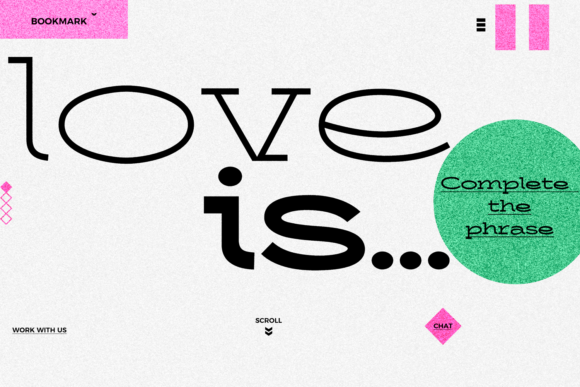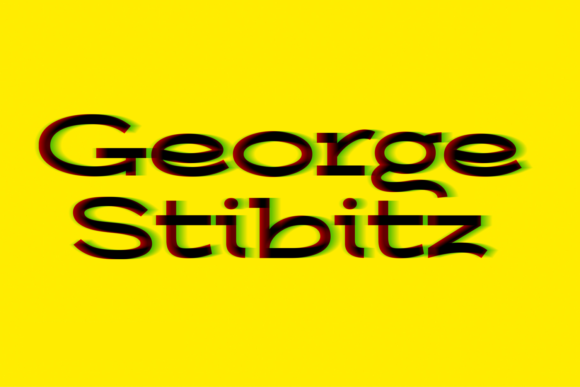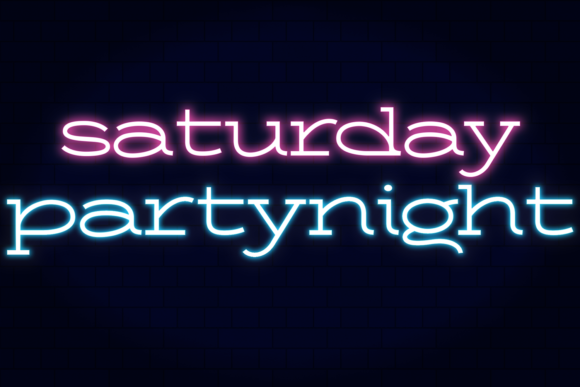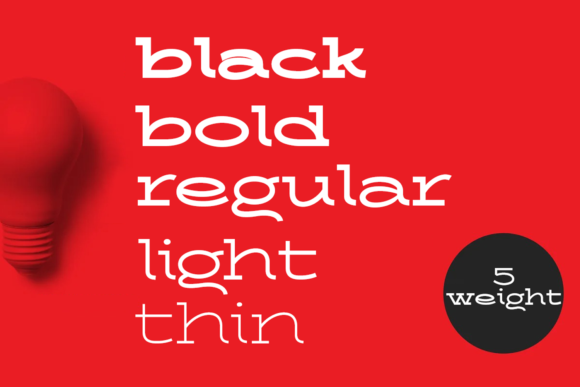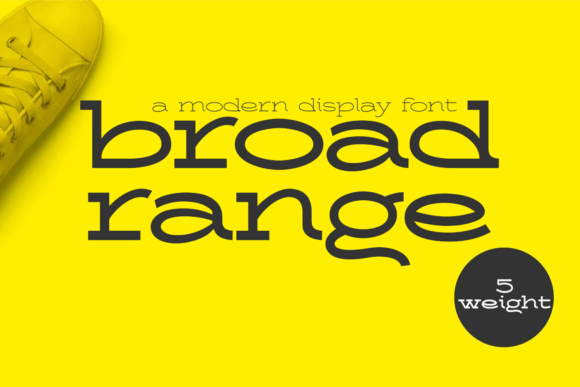
Broad Range
Broad Range: A Cool and Vintage-Styled Slab Serif Font
Broad Range is a distinctive slab serif font that combines coolness with a vintage aesthetic. This versatile typeface is designed to enhance a wide range of design projects, particularly posters, flyers, and print materials.
Key Features of Broad Range
• Cool Design: Offers a trendy and appealing look that resonates with modern design trends.
• Vintage Style: Evokes a sense of nostalgia with its retro-inspired letterforms.
• Slab Serif Structure: Incorporates the characteristic thick, rectangular serifs typical of slab serif fonts.
• Versatile Application: Suitable for various design projects, especially print materials.
• Eye-Catching Details: Unique characteristics that make designs stand out with a vintage flair.
Ideal Uses for Broad Range
Broad Range’s unique characteristics make it particularly well-suited for:
• Poster designs with a retro touch
• Eye-catching flyers and promotional materials
• Print advertisements with a vintage feel
• Book covers and editorial designs
• Branding projects seeking a cool, nostalgic vibe
• Social media graphics and digital content
When incorporating Broad Range into your designs, consider these tips:
• Use for headlines or short blocks of text to showcase its cool and vintage style
• Experiment with different sizes to highlight the font’s unique details
• Take advantage of its versatility across various print and digital projects
Broad Range is an excellent choice for designers looking to add a cool and vintage-styled slab serif font to their typographic toolkit. Its ability to enhance various design projects, particularly in print media, makes it stand out in the world of typography. Whether you’re working on logo designs for retro-inspired brands, creating layouts for eye-catching posters, or developing content that requires a touch of vintage coolness, Broad Range offers the perfect blend of style and versatility.
Furthermore, Broad Range’s adaptability allows it to shine in various contexts. From vintage-inspired designs to more playful layouts that need a touch of retro charm, this font can elevate your projects. Its cool yet vintage style works particularly well in designs that require a thoughtful and nostalgic mood.
In conclusion, Broad Range is a font that truly lives up to its name, offering a broad range of design possibilities. Its ability to work well in both vintage-style projects and contemporary designs that require a retro touch showcases its flexibility. For those looking to add a dash of cool vintage style to their work, Broad Range can even enhance themed creations with its unique, stylish twist. Use this font for your designs and explore its endless possibilities to create stunning visuals that capture attention and evoke nostalgia.